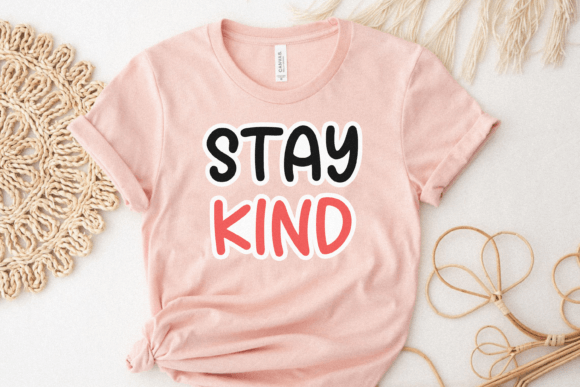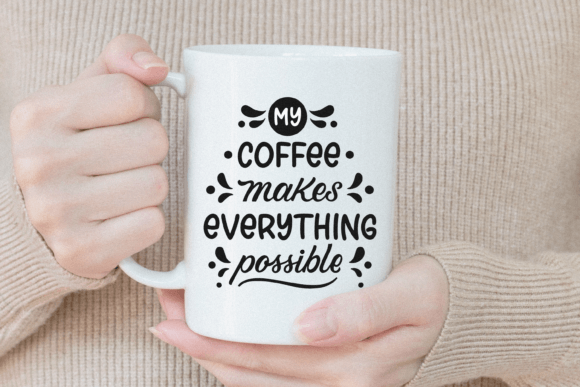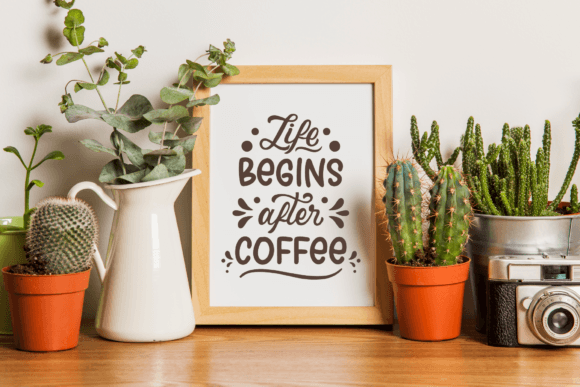
Introduction to Midlaner Font
Midlaner is an All-Caps monoline handwritten font.
Midlaner is perfect for product packaging, branding projects, magazines, social media, weddings, or just used to express words above the background .